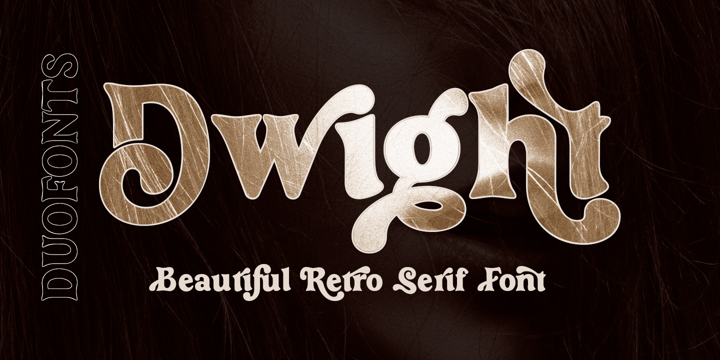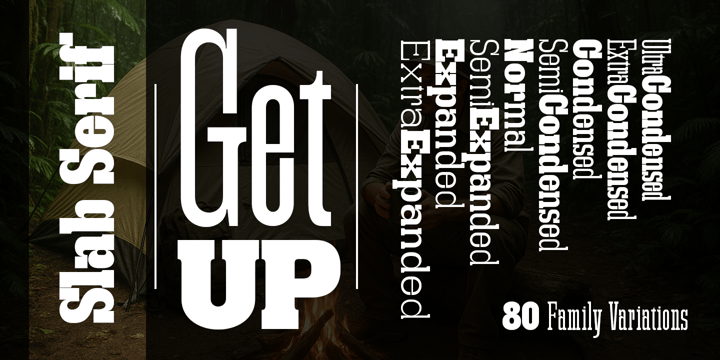
Type Empire 10 Premium Serif Font Bundle
Type Empire – 10 Premium Serif Font Bundle
Elevate your typography collection with Type Empire – 10 Serif Bundle, a carefully curated collection of ten premium serif font families crafted for designers who demand versatility, elegance, and professional quality. From refined editorial styles to bold display designs, this bundle provides everything you need to create timeless visual identities.
Each font family is built with multiple weights and styles, making it suitable for a wide range of creative projects. Whether you're designing luxury branding, book covers, magazines, logos, packaging, websites, invitations, advertising, or social media graphics, Type Empire delivers sophisticated typography with exceptional readability and distinctive character.
Inspired by the elegance of classic typography while refined for modern design, every typeface features balanced proportions, clean letterforms, and meticulous spacing. The collection offers a variety of personalities—from slim and graceful to bold and commanding—allowing you to match the perfect serif style to every project.
Bundle Features
10 Premium Serif Font Families
Wide range of weights and styles
Professional kerning and spacing
Elegant, modern, and timeless design
Perfect for both display and body text
Ideal for branding, editorial, packaging, logos, headlines, fashion, luxury products, publishing, and digital media
High-quality craftsmanship with consistent design across every family
Whether you're creating a luxury brand, a sophisticated publication, or a striking marketing campaign, Type Empire provides a complete serif typography toolkit designed to inspire creativity and deliver professional results.
Type Empire – 10 Premium Serif Font Bundle
Elevate your typography collection with Type Empire – 10 Serif Bundle, a carefully curated collection of ten premium serif font families crafted for designers who demand versatility, elegance, and professional quality. From refined editorial styles to bold display designs, this bundle provides everything you need to create timeless visual identities.
Each font family is built with multiple weights and styles, making it suitable for a wide range of creative projects. Whether you're designing luxury branding, book covers, magazines, logos, packaging, websites, invitations, advertising, or social media graphics, Type Empire delivers sophisticated typography with exceptional readability and distinctive character.
Inspired by the elegance of classic typography while refined for modern design, every typeface features balanced proportions, clean letterforms, and meticulous spacing. The collection offers a variety of personalities—from slim and graceful to bold and commanding—allowing you to match the perfect serif style to every project.
Bundle Features
10 Premium Serif Font Families
Wide range of weights and styles
Professional kerning and spacing
Elegant, modern, and timeless design
Perfect for both display and body text
Ideal for branding, editorial, packaging, logos, headlines, fashion, luxury products, publishing, and digital media
High-quality craftsmanship with consistent design across every family
Whether you're creating a luxury brand, a sophisticated publication, or a striking marketing campaign, Type Empire provides a complete serif typography toolkit designed to inspire creativity and deliver professional results.